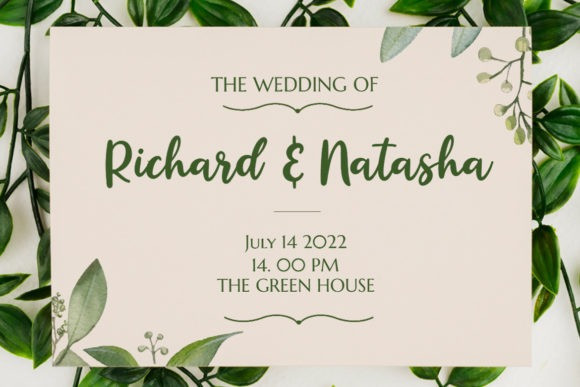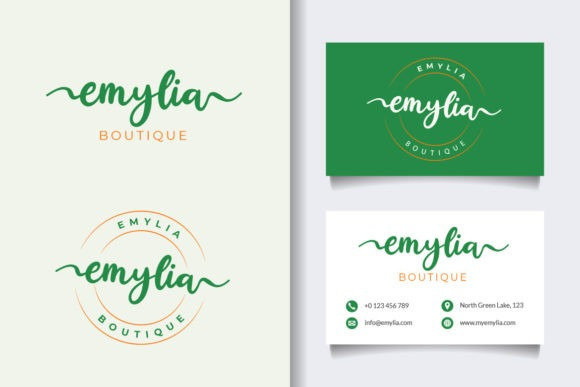
Conformable Calligraphy Font
Kembara Cinta is a casual, fun handwritten font. Clean and a little bit quirky, this font is the perfect fit for all of your logos, branding, social media, and crafty DIY projects.